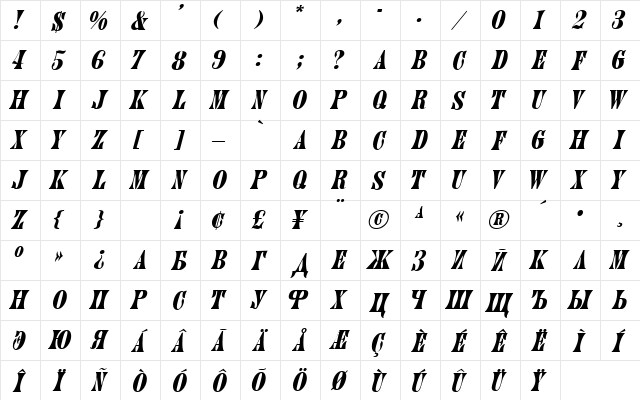
Juniper-Italic A
Design Context for Juniper-Italic Typeface
Juniper-Italic is a composed and adaptable typeface that performs quietly and consistently across a wide range of design contexts. The dynamic lean of this cut emphasises speed and emphasis in any layout.
Pro Tip: Use Juniper-Italic for emphasis, pull quotes, and subheadings where its slanted energy can add rhythm to the layout.